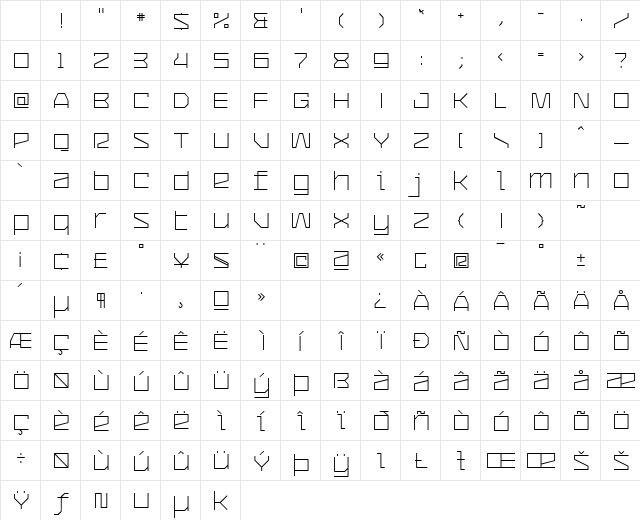
CommunityService is a composed and adaptable typeface that performs quietly and consistently across a wide range of design contexts. Its slender proportions lend an understated elegance to any composition.